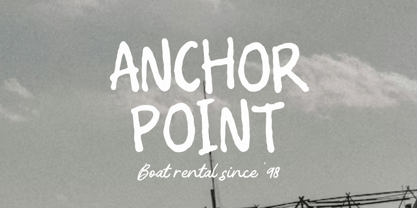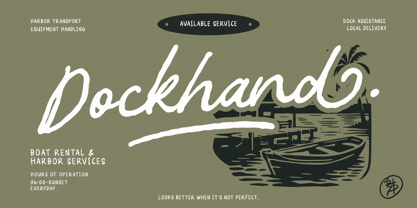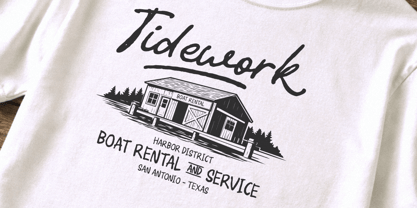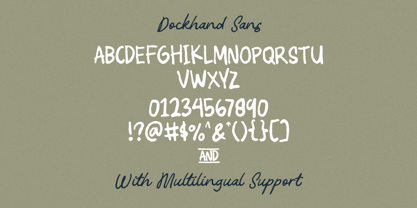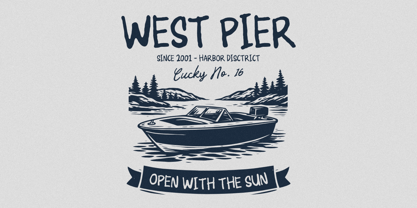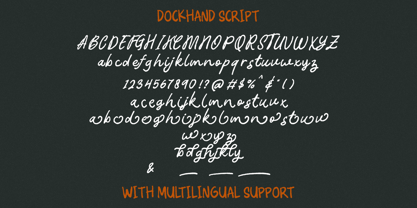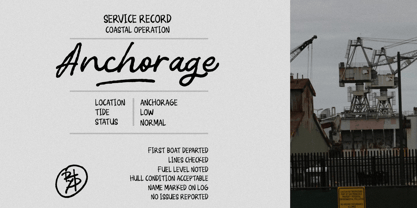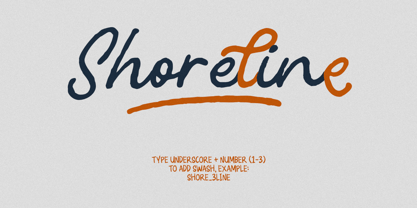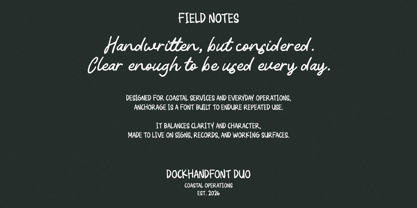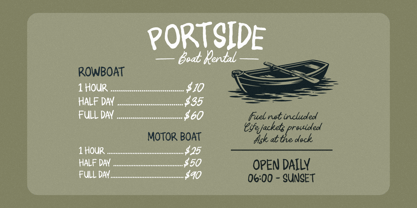
RT Dockhand
von Rillatype
Die Schriftfamilie RT Dockhand wurde von Gustian Agung Asprilla entworfen und von Rillatype veröffentlicht. RT Dockhand enthält 2 Stile und Familienpaketoptionen. Mehr über diese Familie
Dockhand is a script & sans font duo designed for clarity, structure, and everyday use. Rooted in coastal work environments, service records, and dockside operations, Dockhand balances human handwriting with a dependable typographic system. The script is clean, controlled, and intentional — written to be understood, not rushed. The sans provides structure, legibility, and order for functional layouts. Dockhand is built for projects that need character without excess: branding, signage, editorial layouts, documentation, apparel, and visual systems inspired by real working places. The font includes carefully designed stylistic alternates that subtly vary select letterforms to create a more natural rhythm while maintaining consistency. These alternates are functional, restrained, and suitable for repeated, long-term use. Dockhand is not decorative by nature it is made to work. FEATURES - Script & Sans font duo - Clean and legible handwritten script - Functional sans serif for hierarchy and structure - Selective stylistic alternates Thank You!
Designer: Gustian Agung Asprilla
Foundry: Rillatype